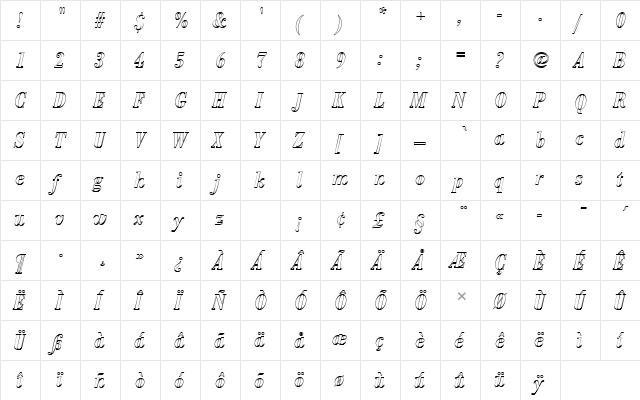
BodoniAntTDemBolConItaOu1 Regular Font Preview
BodoniAntTDemBolConItaOu1 Regular
Design Context for BodoniAntTDemBolConItaOu1 Typeface
BodoniAntTDemBolConItaOu1 takes a measured approach to typography — its balanced proportions and neutral character make it a reliable workhorse for both digital and print work.